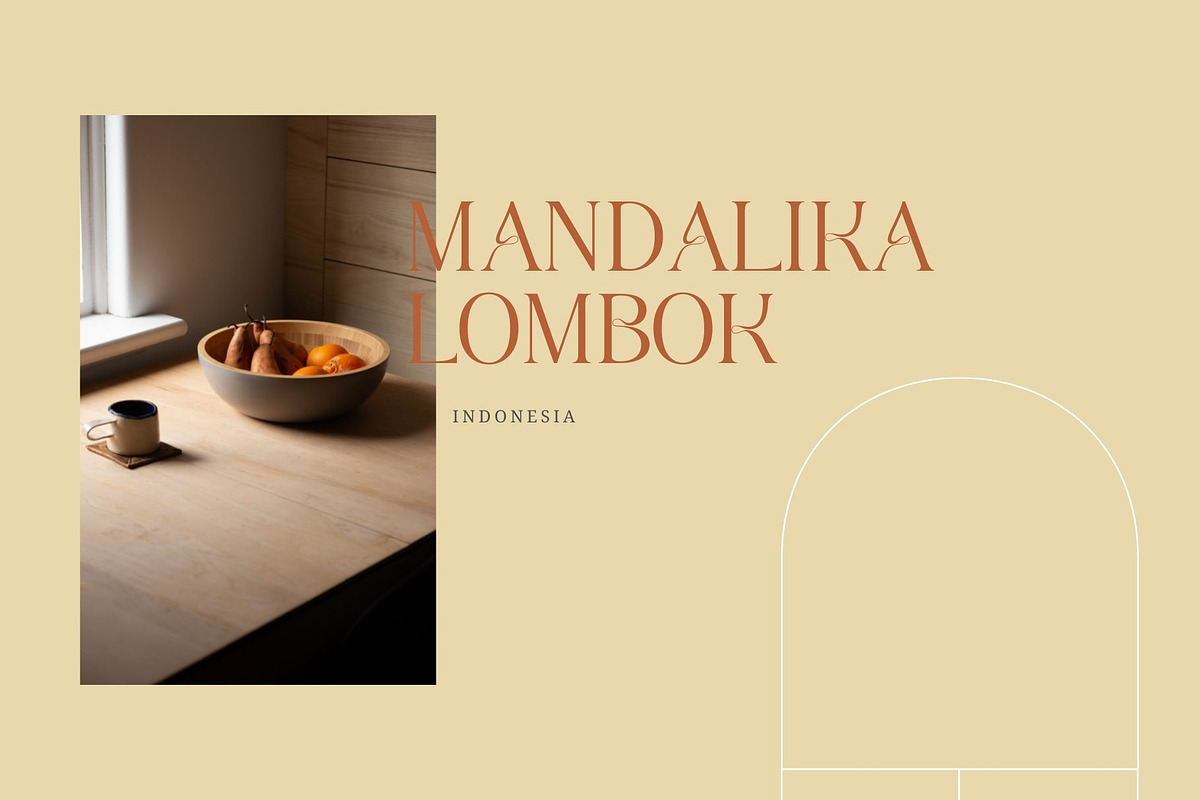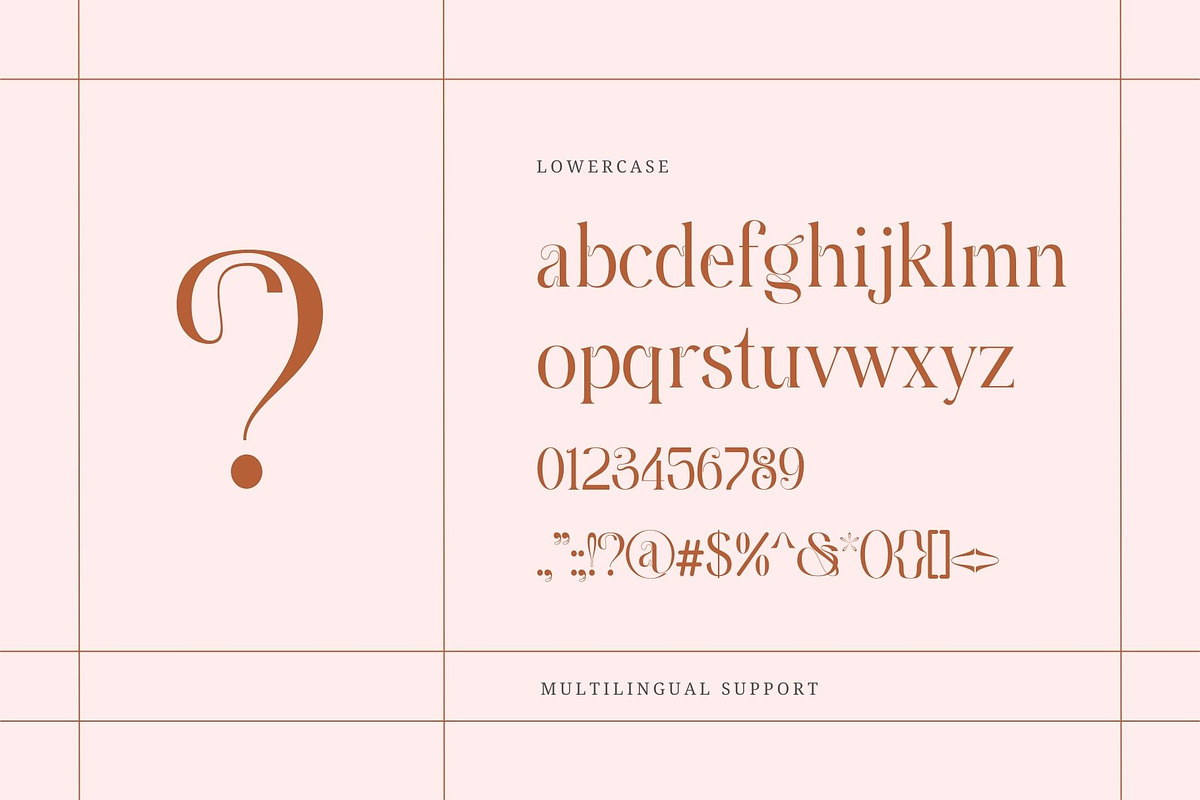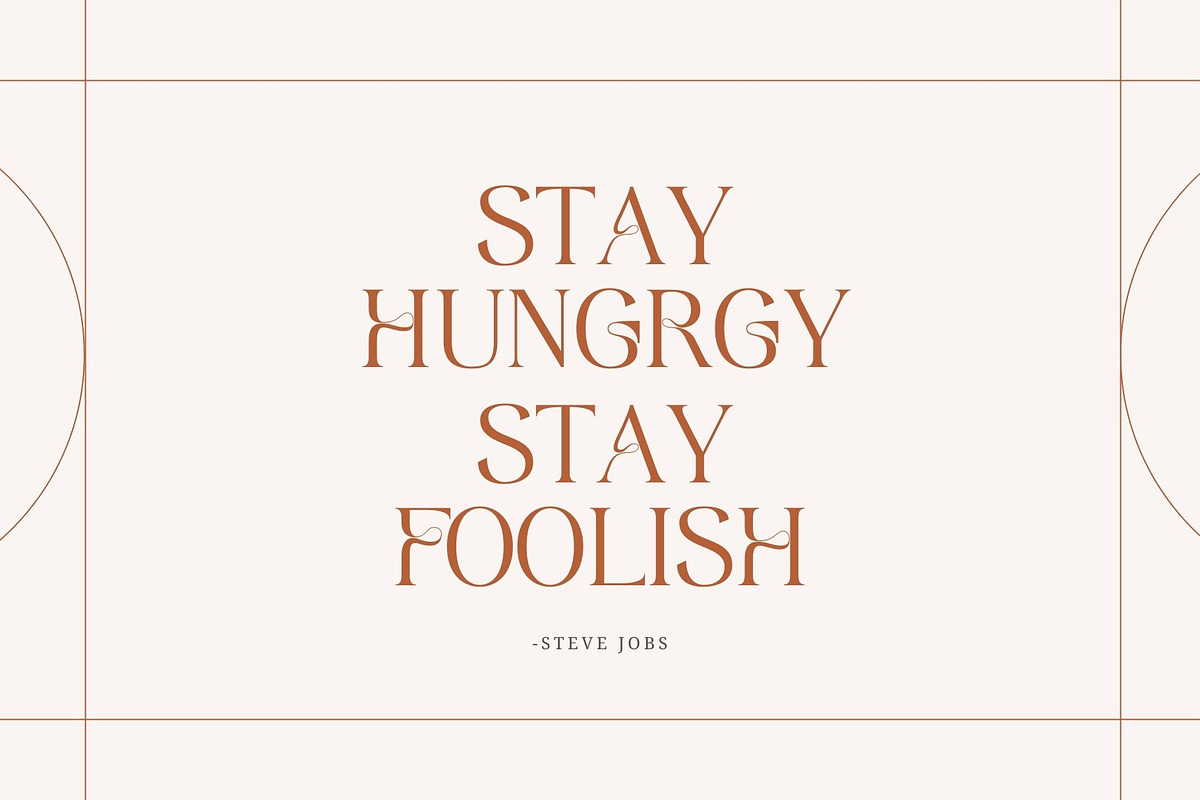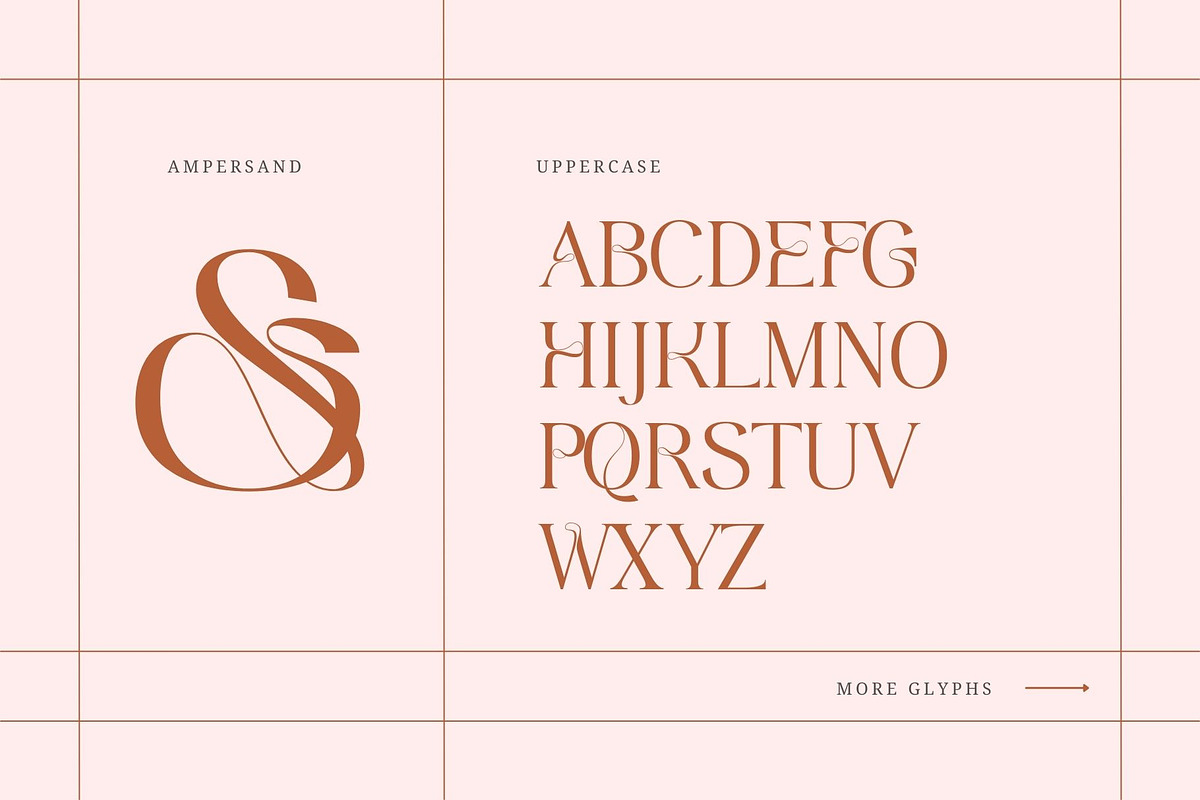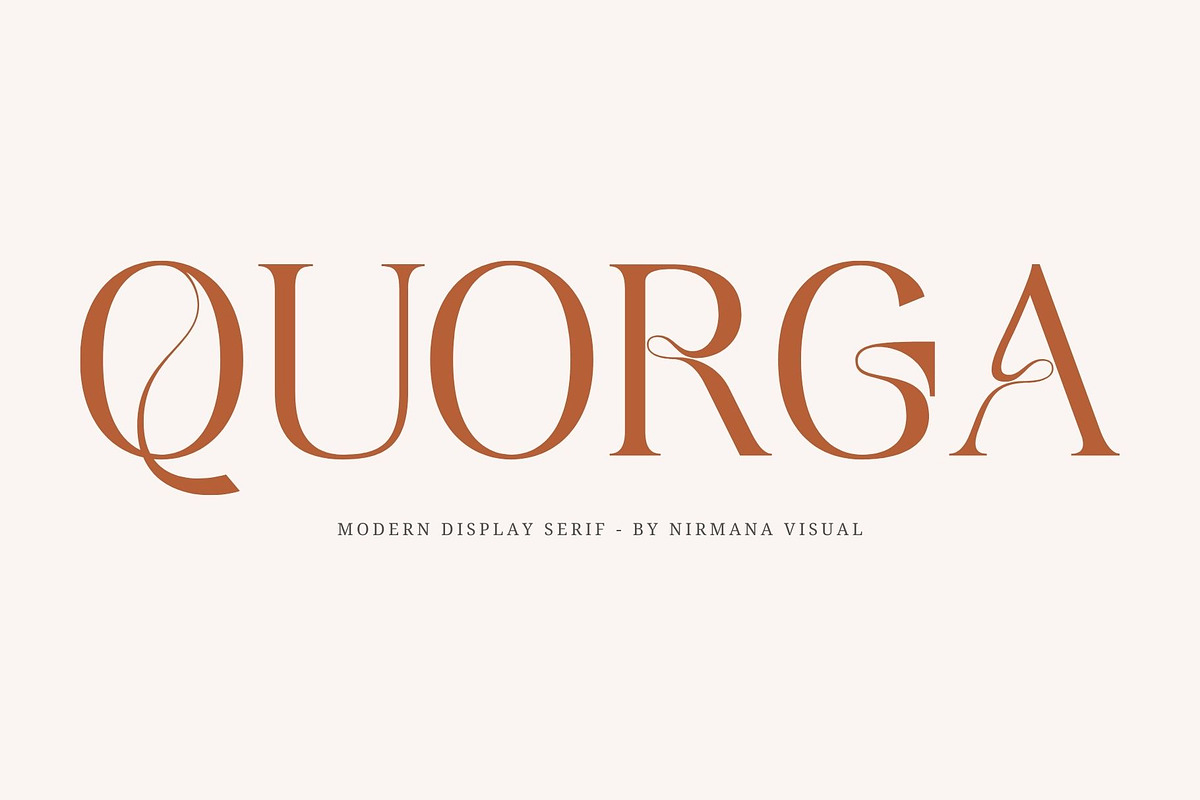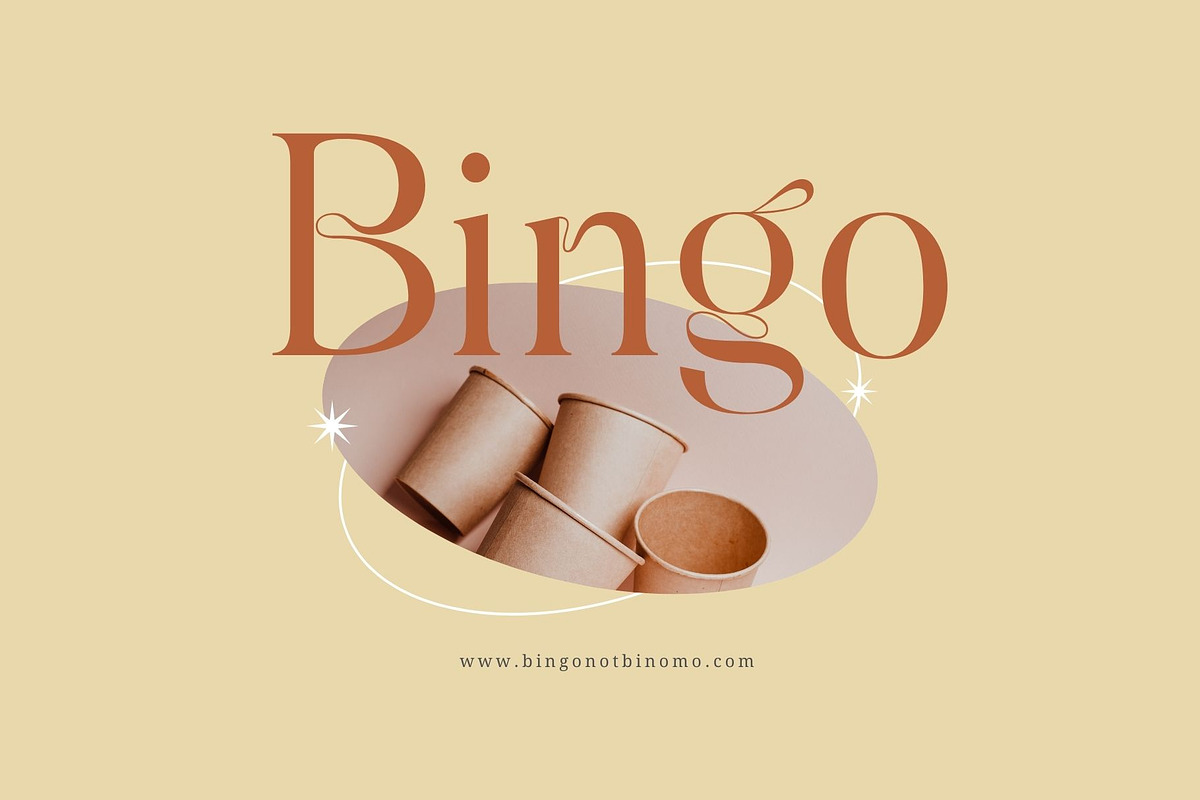
Quorga - Modern Serif
King Victory is a modern serif font that is both memorable and stylish. It’s a mix between a classic serif and a modern serif.
This font is perfect for fashion related branding or editorial design and displays both masculine and feminine qualities.